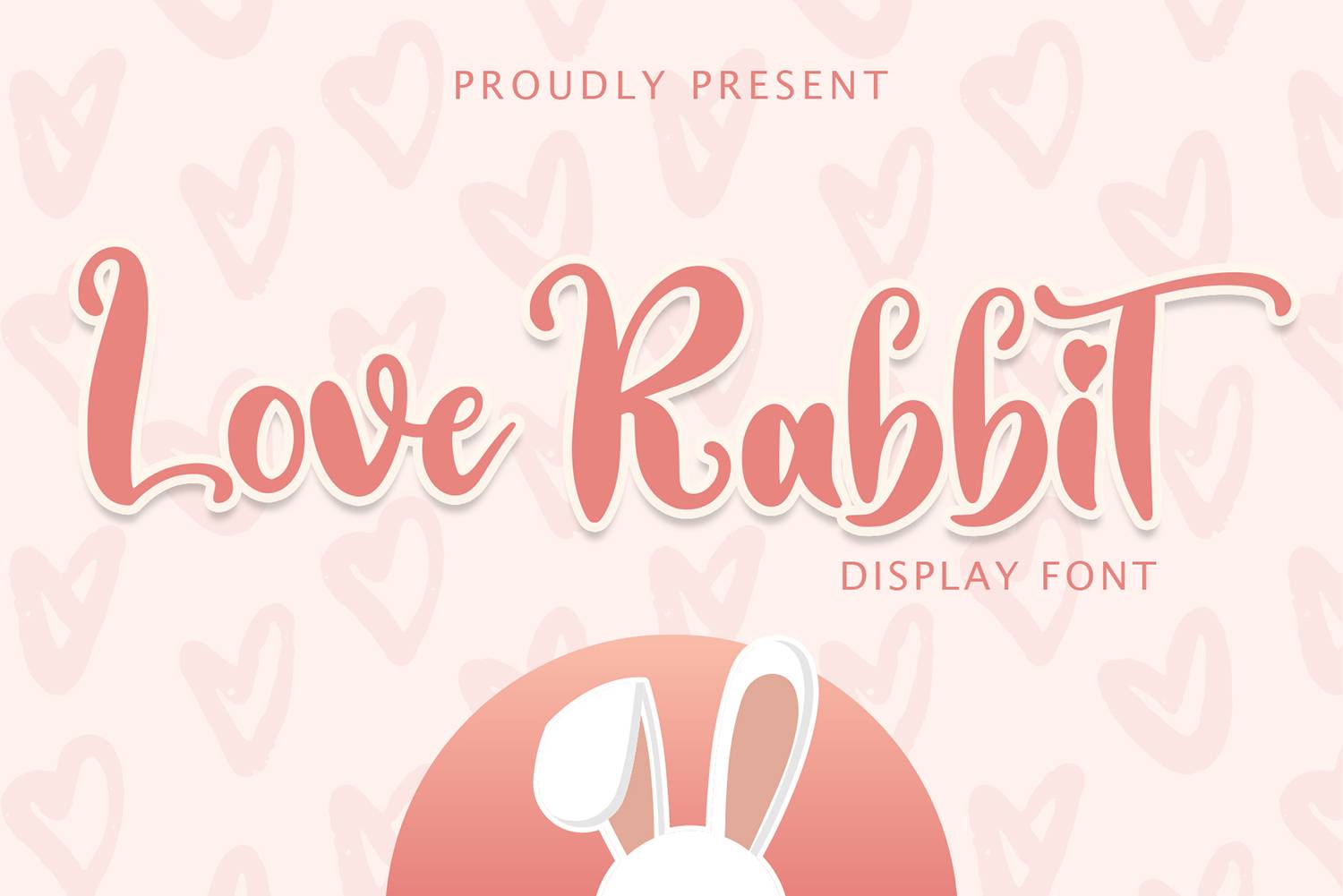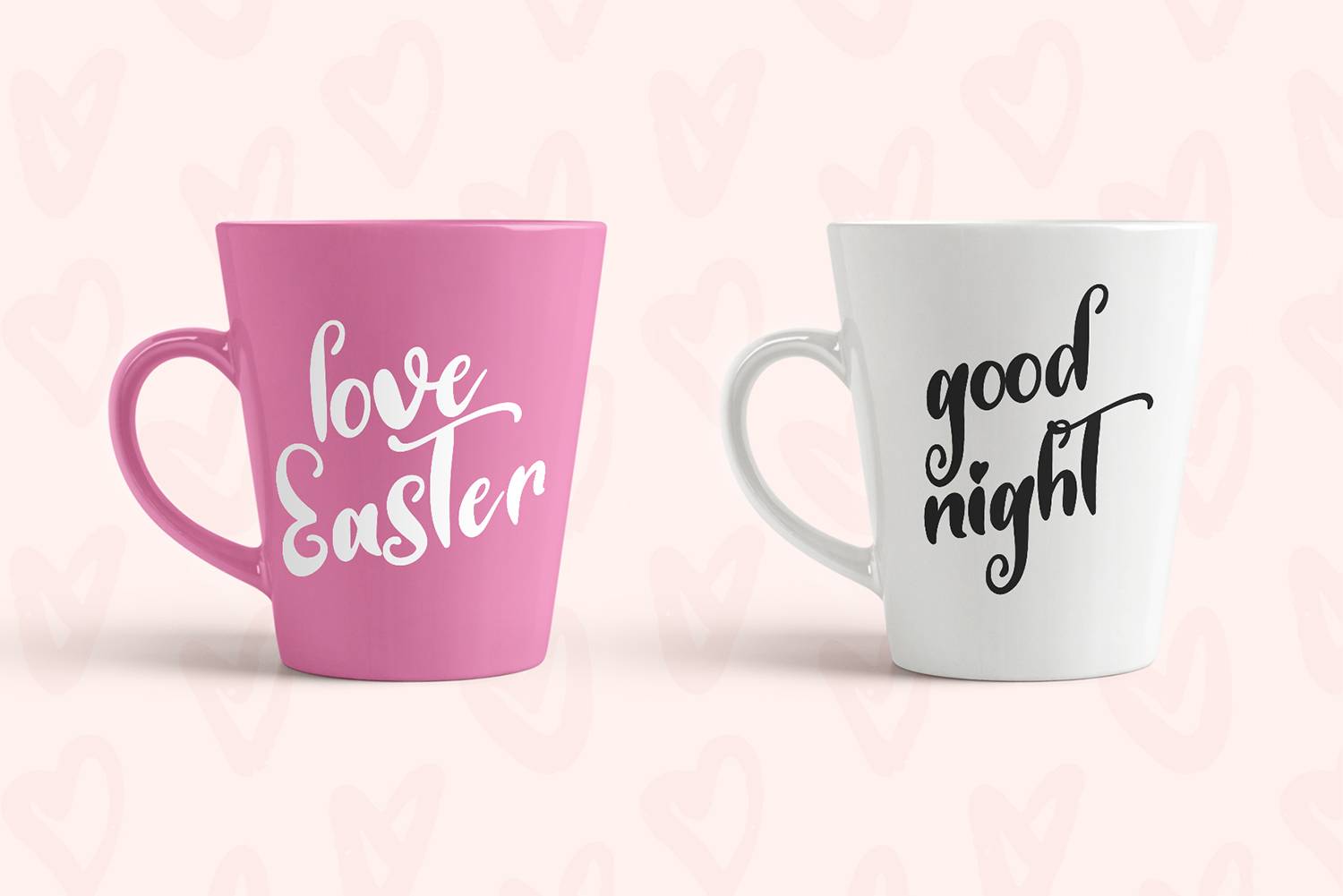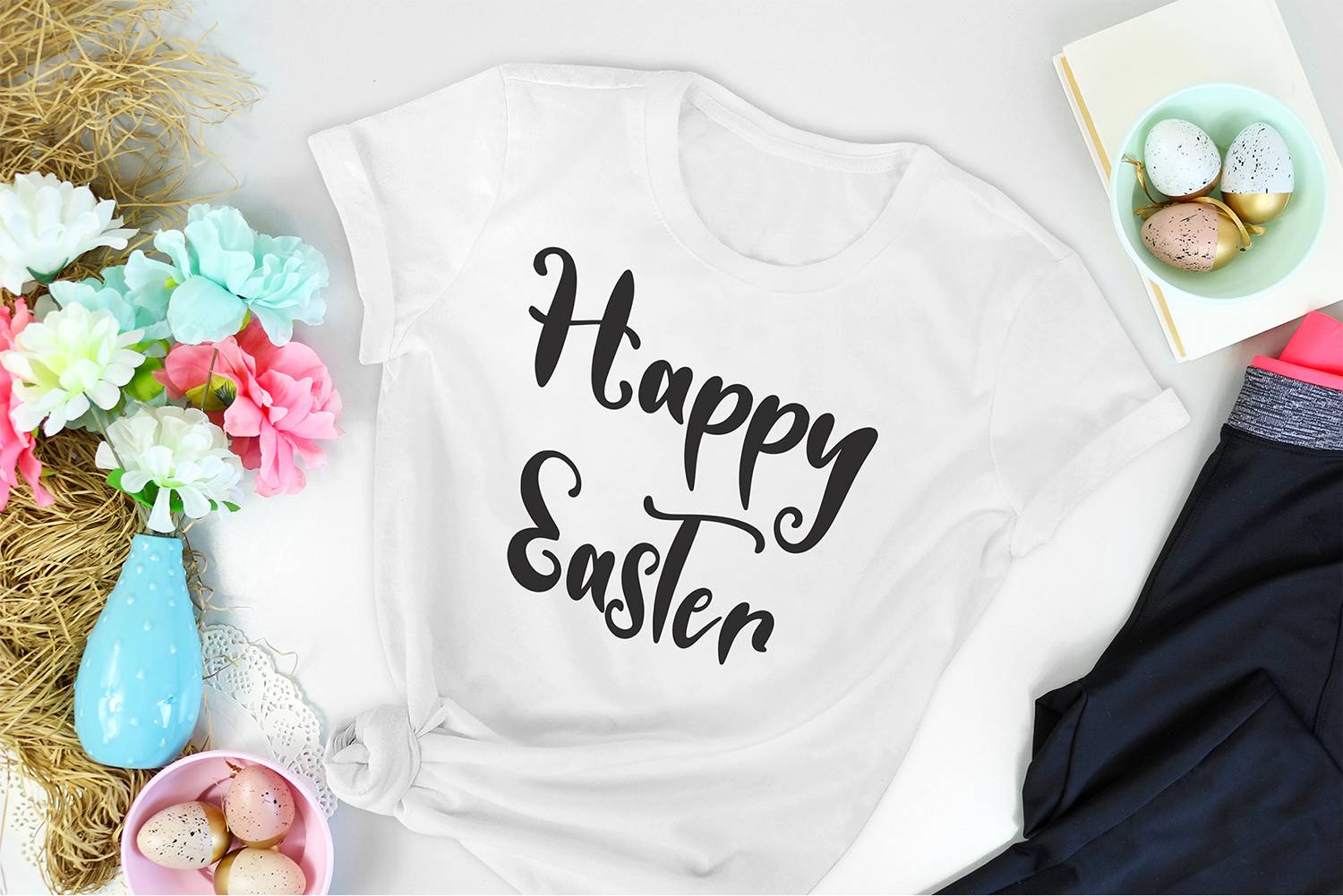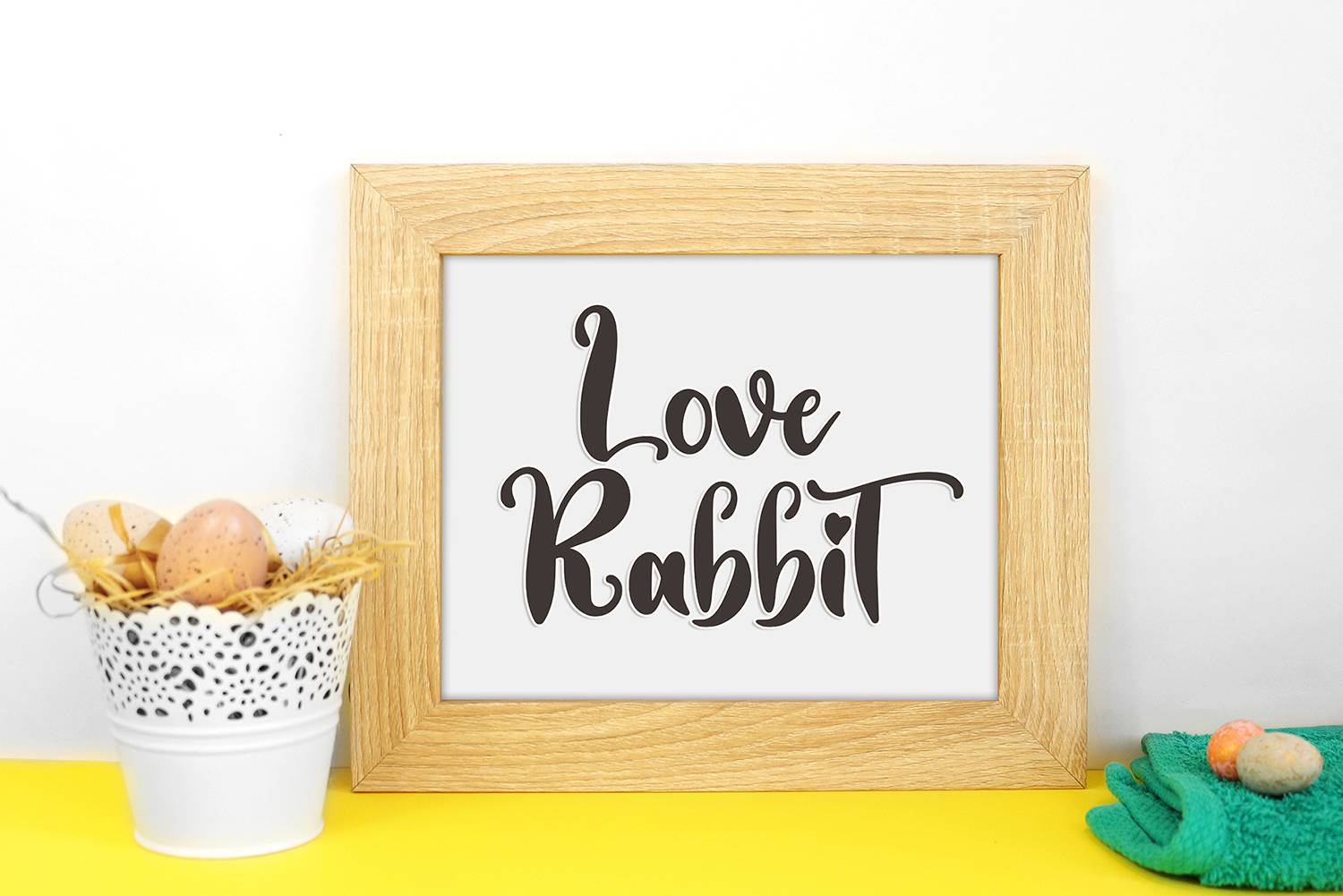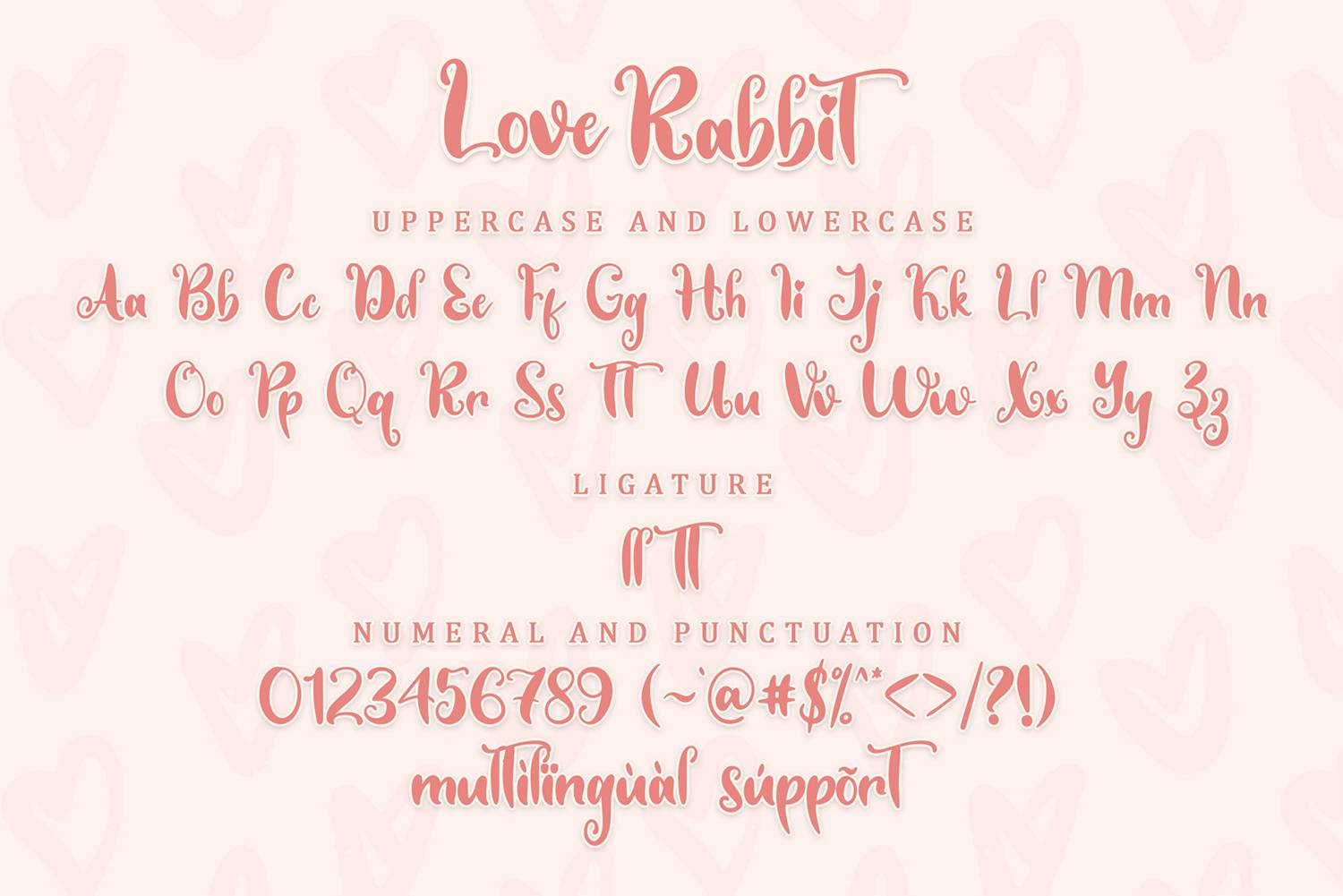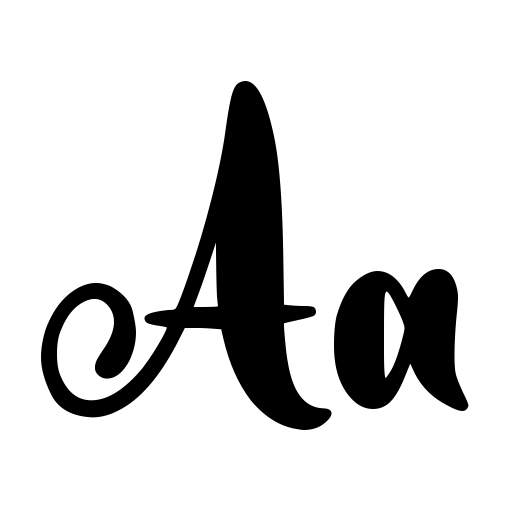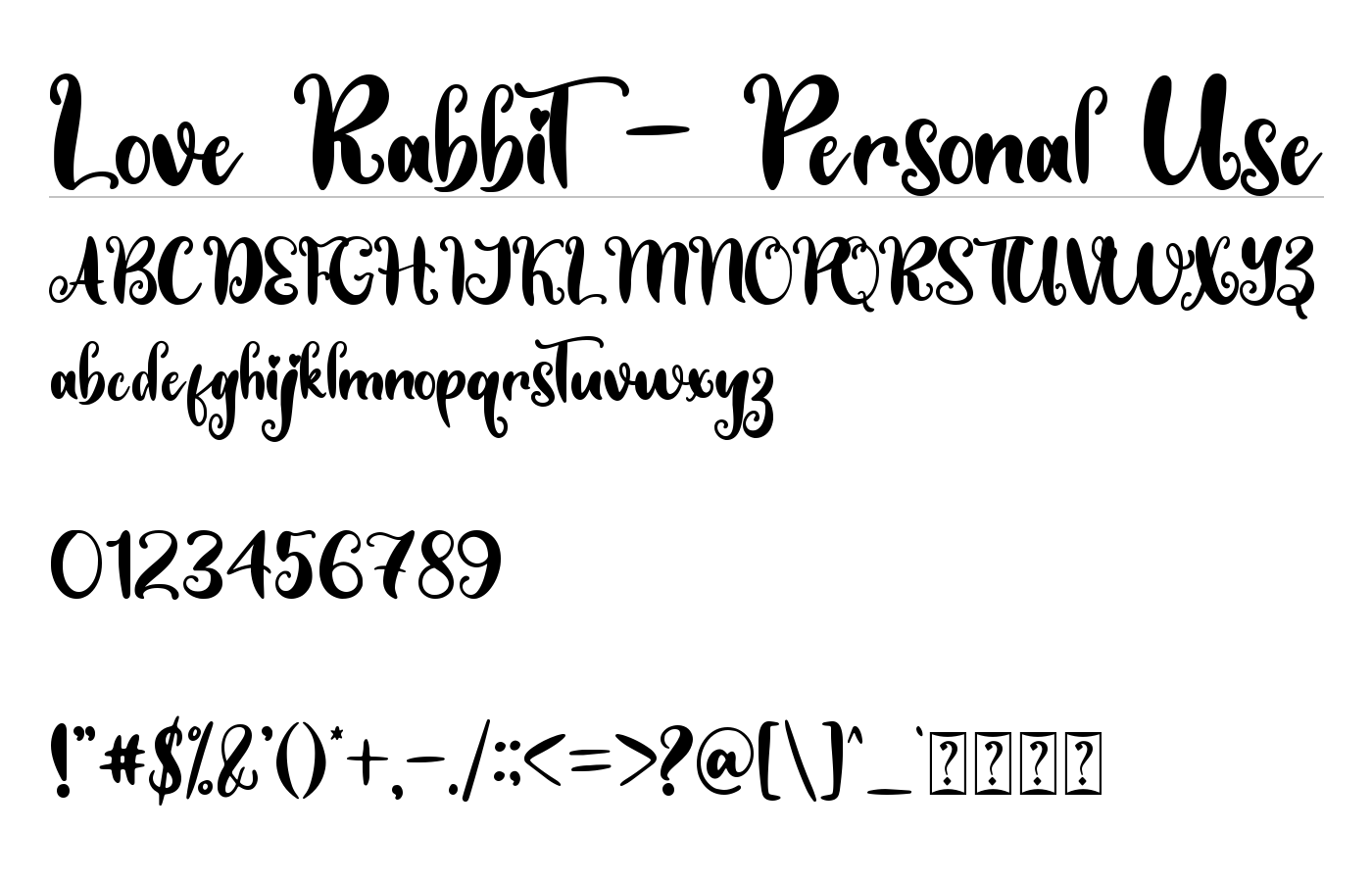
Love Rabbit is a playful and charming script font with a bold weight and whimsical curves, featuring unique heart-shaped details and lively strokes that give it a friendly, handcrafted feel. Its playful personality makes it perfect for creative projects like invitations, branding, and packaging that aim to convey warmth and joy. This font works especially well for headlines and decorative text where a fun, approachable style is desired.
Love Rabbit Font
About Love Rabbit Font